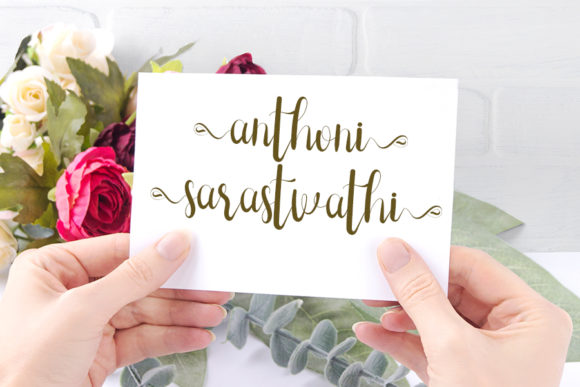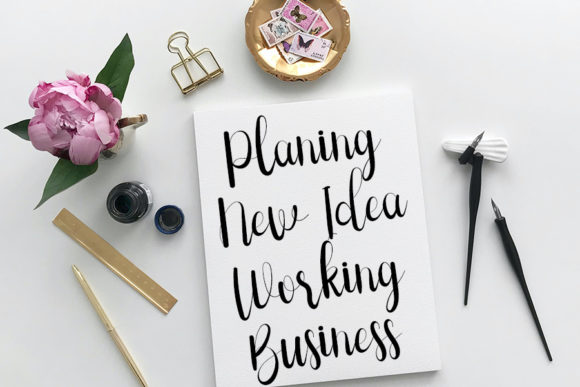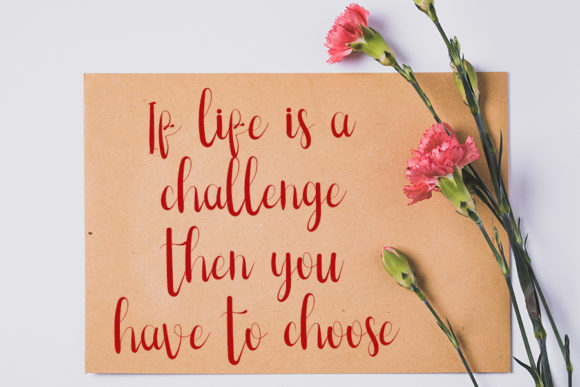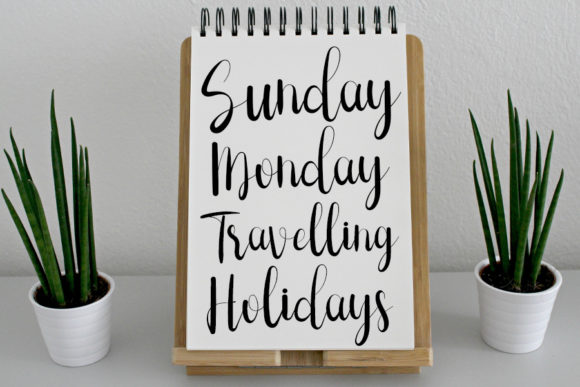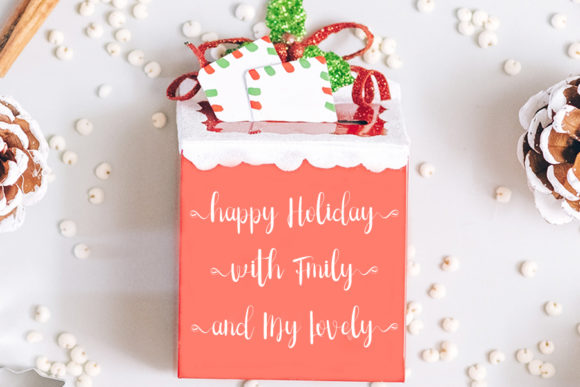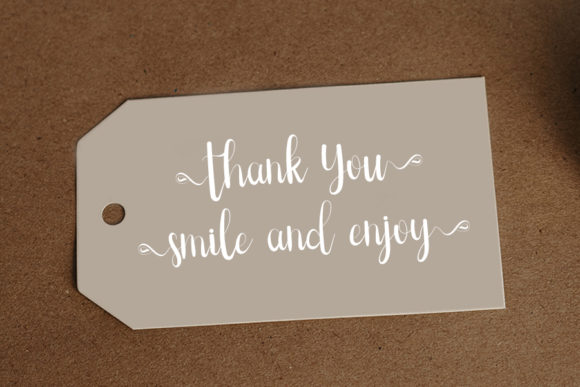
The Perfect Script Font for Your Creative Masterpiece
There’s nothing quite like the thrill of bringing a creative idea to life. Whether it’s designing a social media campaign, crafting a handmade card, or writing a heartfelt letter, the right font can make all the difference. For designers and creatives, the perfect script font is the key to unlocking a world of artistic expression.
Enter the Hello Picha Font, a clean and dainty script font that’s perfect for adding a touch of elegance to any project. With its versatility and range of styles, this font is a must-have for designers looking to elevate their work. Plus, its PUA encoding makes it easy to access all the glyphs and swashes, giving you complete control over your design.
So why settle for a generic font when you can make a statement with the Hello Picha Font? Whether you’re a seasoned designer or just starting out, this font is sure to inspire your next creative project.
Hello Picha Font Key Features
- Font Styles: Hello Picha Font offers a variety of font styles, including regular, bold, italic, and bold italic, to cater to different design needs.
- Character Set: Hello Picha Font supports a wide range of languages, including Latin, Cyrillic, Greek, and Devanagari scripts, making it suitable for multilingual designs.
- Unique Characteristics: The font features a unique, hand-drawn design with subtle texture and organic feel, making it ideal for creative and artistic projects.
Hello Picha Font Review
First of all, I must say that Hello Picha Font is a beautiful and unique font that can add a touch of personality to any project. ✨ The font’s playful and quirky feel makes it perfect for designs that need a bit of whimsy.
The font’s wide range of weights and styles is another major plus. ✨ From light to bold, and with a variety of scripts and ligatures, you can create some really interesting and dynamic typography. Additionally, the font includes a wide range of characters, including symbols and punctuation, making it a great choice for designs that require a lot of customization.
- ⚠️ The font’s unique feel can also be a bit overwhelming at times. It may not be the best choice for designs that need to convey a sense of professionalism or sophistication.
- ⚠️ The font’s lack of consistency in certain weights and styles can make it difficult to use for projects that require a lot of repetition or uniformity.
Overall, I think Hello Picha Font is a great choice for designers who want to add a bit of personality to their projects. While it may not be the best choice for every design, it’s definitely worth considering for projects that need a bit of whimsy or playfulness.
Alternatives to Hello Picha Font for Designers
Great Vibes Font is a modern, elegant script font suitable for titles, headings, and body text. It’s ideal for creating a professional and sophisticated look in magazines, advertising, and editorial designs. Compared to Hello Picha Font, Great Vibes Font is more versatile and can be used for a wider range of design projects.
Pacifico Font is a beautiful, cursive font that exudes a sense of relaxation and calmness. It’s perfect for designing invitations, wedding stationery, and other creative projects that require a touch of elegance and sophistication. Unlike Hello Picha Font, Pacifico Font is more suitable for designs that require a softer, more delicate look.
Lobster Font is a fun, playful script font that’s ideal for creating eye-catching titles and headings. It’s perfect for designing websites, social media graphics, and other digital projects that require a bold and attention-grabbing look. Compared to Hello Picha Font, Lobster Font is more energetic and can add a sense of playfulness to designs.